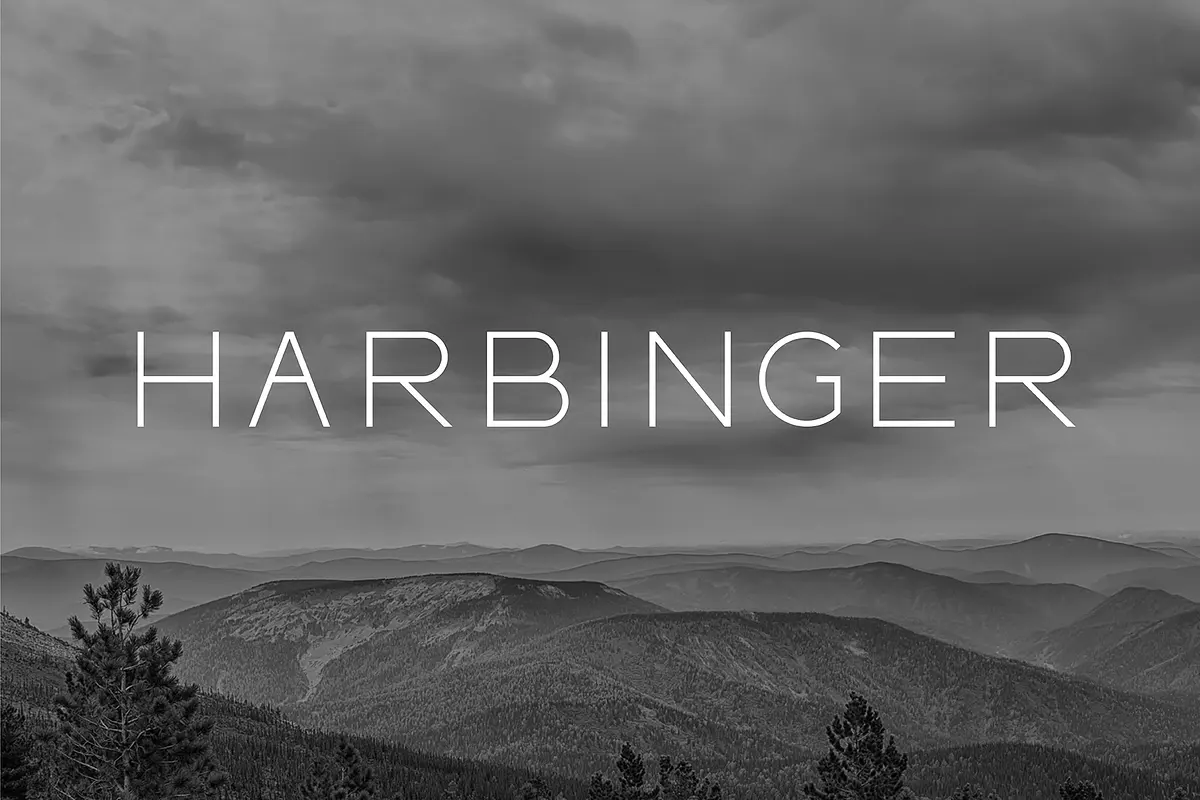
HARBINGER, sans serif font Free Download
HARBINGER, Sans Serif Font Free Download
HARBINGER, Sans Serif Font Free Download is a bold and contemporary typeface designed to make a strong statement with clean, modern lines. With its geometric letterforms and sharp edges, Harbinger is perfect for logos, headlines, branding, editorial design, and digital content that requires clarity, style, and a professional aesthetic.
Its simplicity and minimalism make it versatile for a wide range of applications, from corporate websites to creative posters. Whether used for large headlines or smaller body text, Harbinger provides a sleek, sophisticated look that works in any modern design.